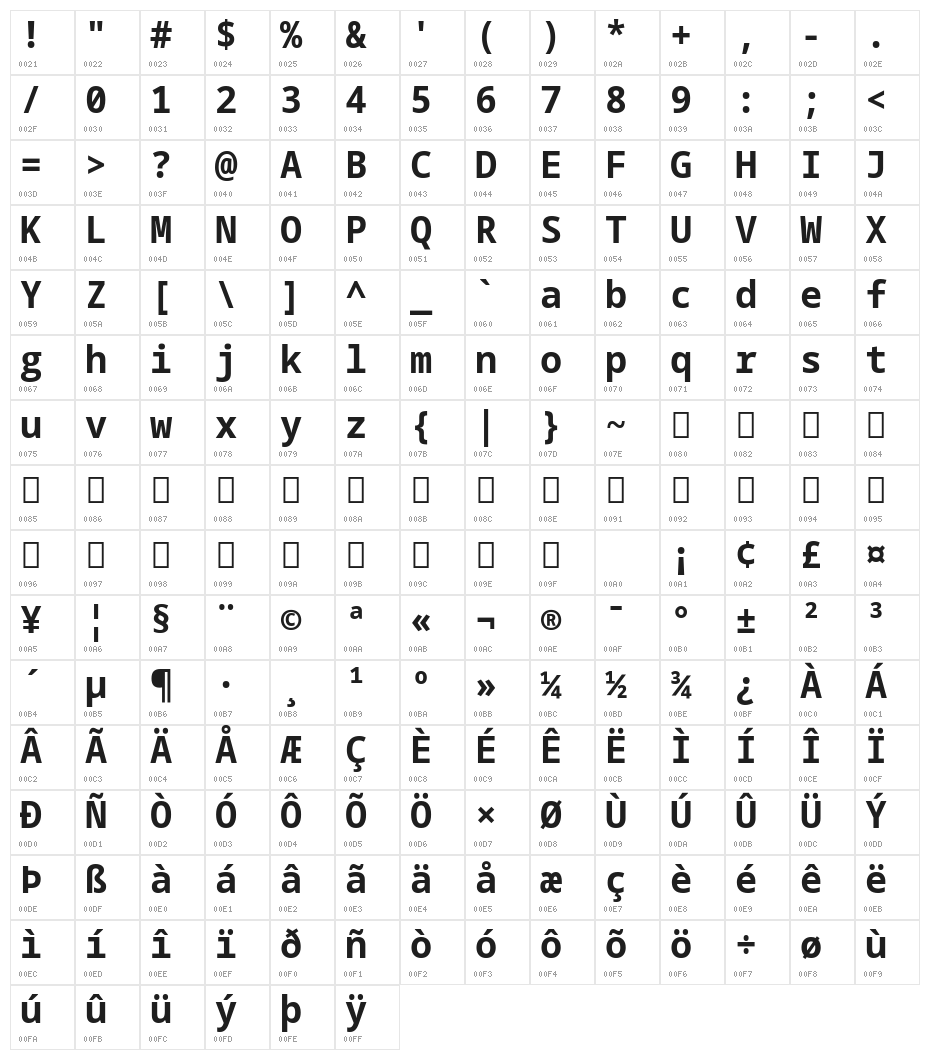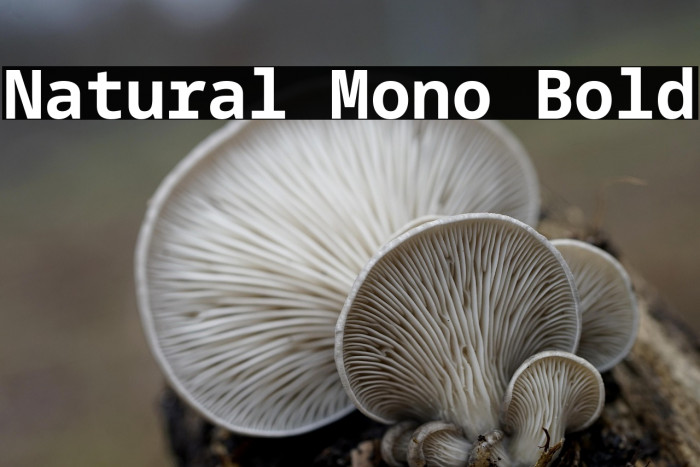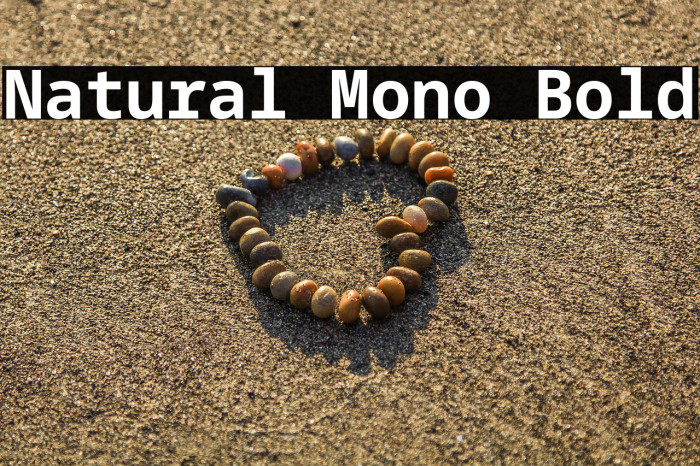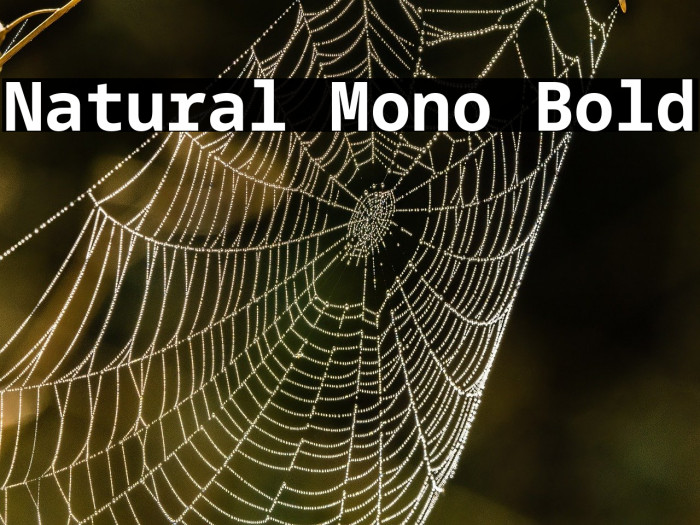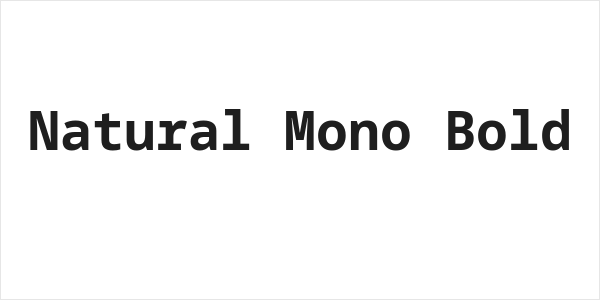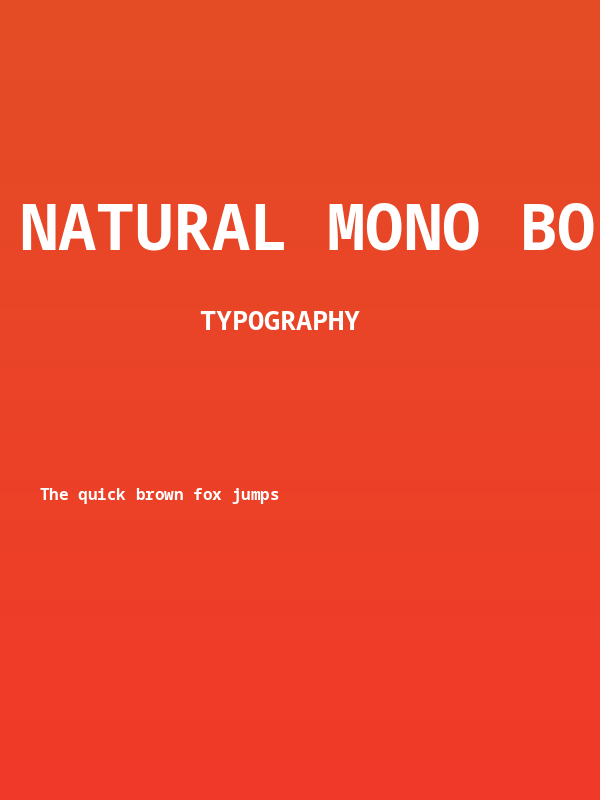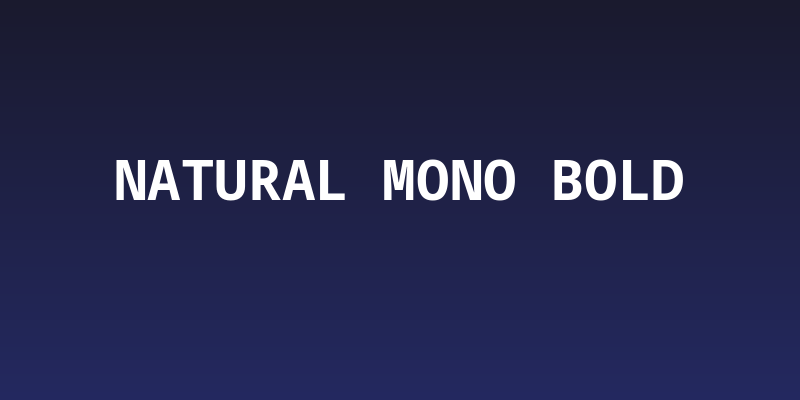
Natural Mono Bold Font
Natural Mono Bold Description
This font features a bold, monospaced design with a clean and modern aesthetic. Each character is uniformly spaced, providing a structured and orderly appearance. The bold weight enhances readability and makes it suitable for various applications where clarity is essential. The font maintains a consistent stroke width, offering a low contrast between thick and thin lines. Its simplicity and straightforwardness make it versatile for both digital and print media. The characters are well-defined, with a geometric influence that adds to its contemporary feel. This font is ideal for coding, technical documents, and any project requiring a clear and professional look.
| Use Case | Coding, Technical documents, User interfaces |
| Proposed Projects | Ideal for coding, technical documents, user interfaces, and any project requiring clarity and precision. |